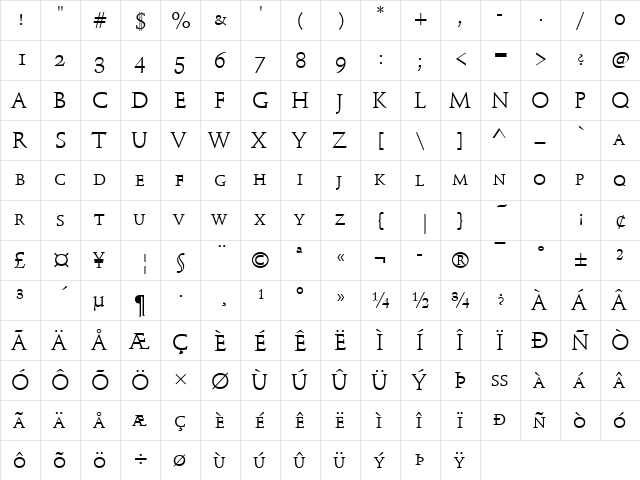
SchneidlerMedSCTReg Regular Font Preview
SchneidlerMedSCTReg Regular
SchneidlerMedSCTReg Regular Font Details
Design Context for SchneidlerMedSCTReg Typeface
SchneidlerMedSCTReg is a composed and adaptable typeface that performs quietly and consistently across a wide range of design contexts.